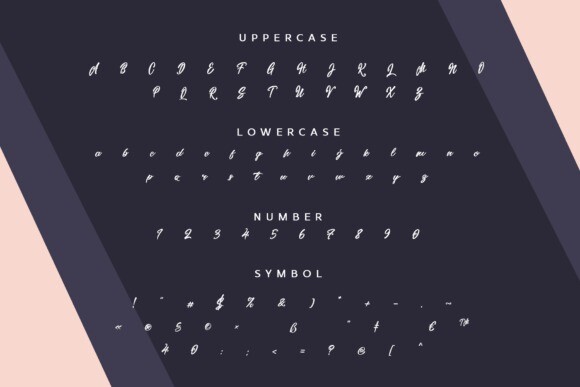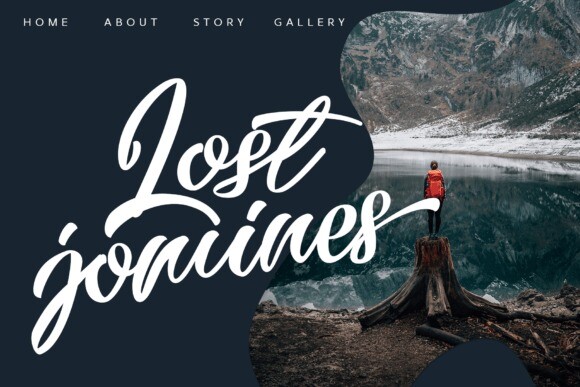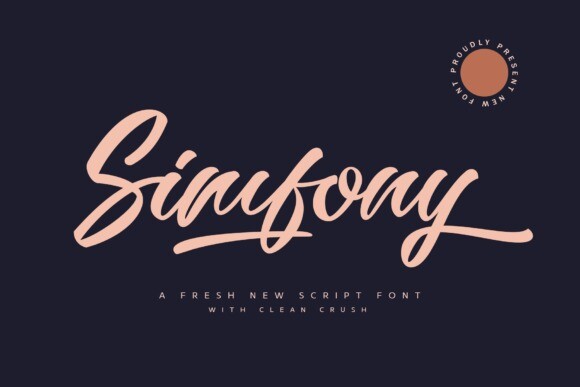
Simfony Font
Simfony Font is a magical script font with clean crush, carefully created with a touch of elegance. Whether you’re looking for fonts for Instagram or calligraphy scripts for DIY projects or for company products, this font will turn any creative idea into a true piece of art!